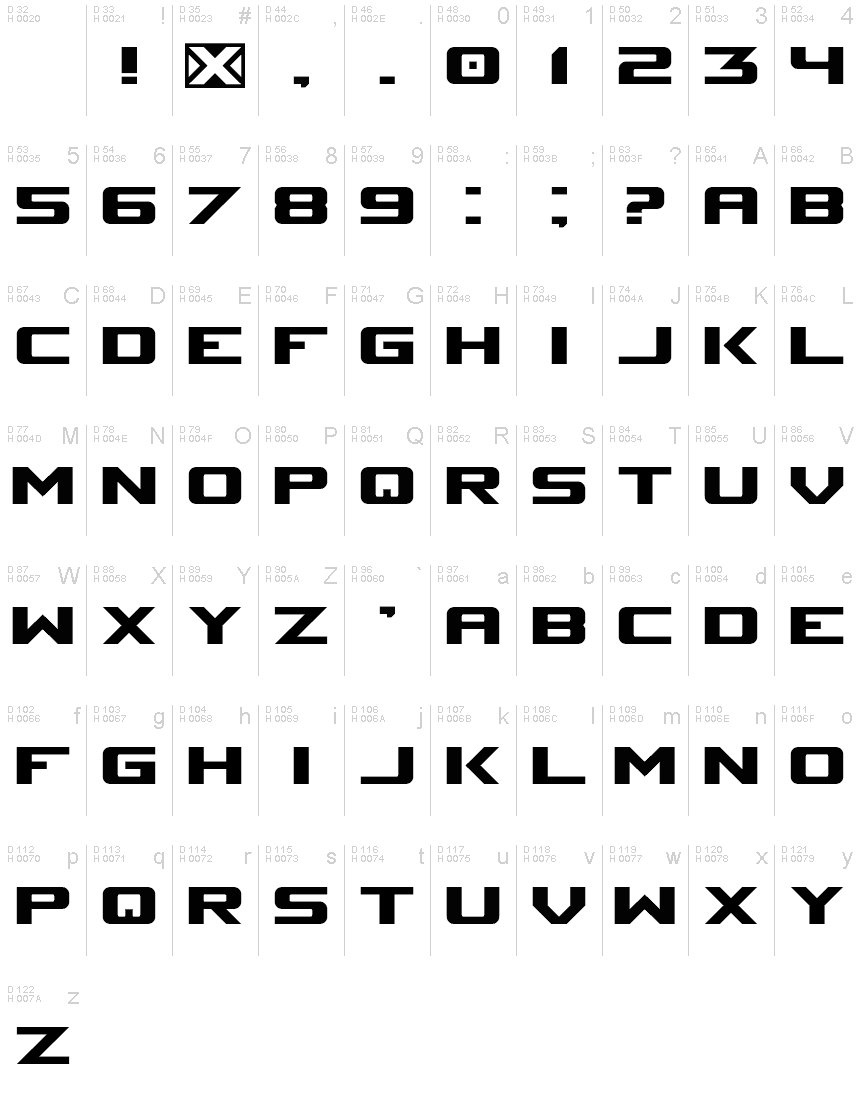
Space Marine Nominal
Space Marine Nominal, a distinctive member of the Space Marine font family, stands as a bold statement in the realm of typeface design. Crafted by the visionary Joiro Hatgaya, this display font exudes a futuristic flair that captures the essence of forward-thinking creativity. With its extra-expanded width and hefty weight, Space Marine Nominal commands attention and dominates visual space with an authoritative presence.
The font's aesthetic appeal lies in its sharp lines and geometric form, evoking images of advanced technology and interstellar travel. Its style is unmistakably modern—perfect for projects that require a touch of the avant-garde or sci-fi vibe. From eye-catching headlines to immersive branding elements, Space Marine Nominal offers designers a versatile tool to create impactful messages that resonate in today's digital landscape.
Suited for high-concept art installations, video game interfaces, or any creative endeavor that aims to push boundaries, Space Marine Nominal is not just a typeface but an invitation to explore the possibilities of design where imagination meets boldness.
The font's aesthetic appeal lies in its sharp lines and geometric form, evoking images of advanced technology and interstellar travel. Its style is unmistakably modern—perfect for projects that require a touch of the avant-garde or sci-fi vibe. From eye-catching headlines to immersive branding elements, Space Marine Nominal offers designers a versatile tool to create impactful messages that resonate in today's digital landscape.
Suited for high-concept art installations, video game interfaces, or any creative endeavor that aims to push boundaries, Space Marine Nominal is not just a typeface but an invitation to explore the possibilities of design where imagination meets boldness.